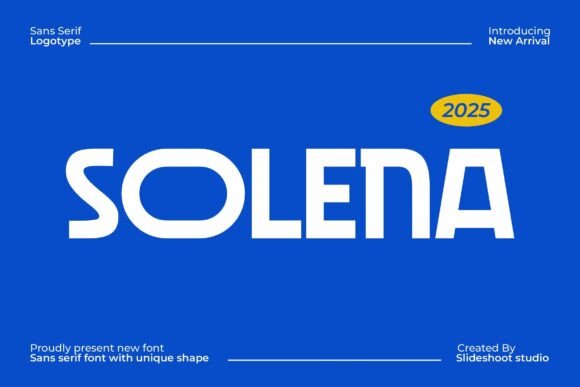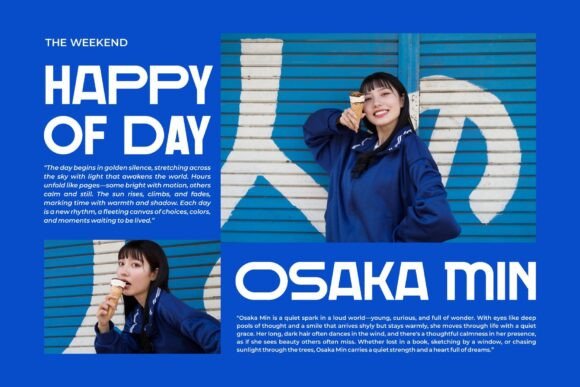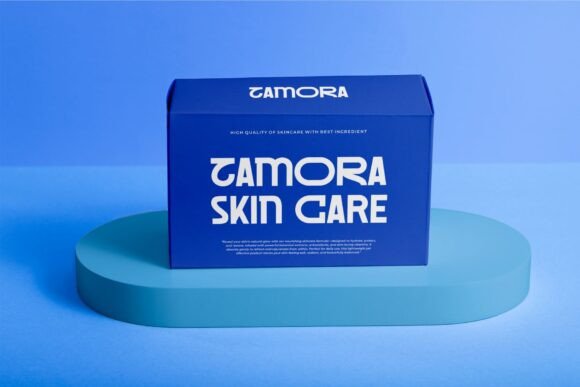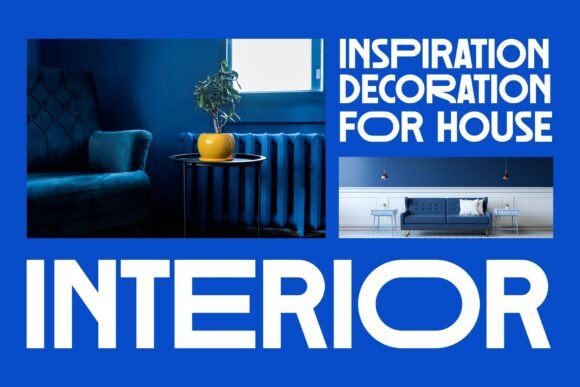
Solen Font
About the Solen Font
Step up your design game with Solen Font, a font that exudes confidence and style. Make a bold statement with our latest sans-serif font. With its clean lines and modern appeal, this font is sure to turn heads and leave a lasting impression. Perfect for headlines, logos, and any design that demands attention. Solen font is both functional and stylish, making it a versatile choice for a wide range of design projects.
Solen Font Usage Examples
Solen Font Example